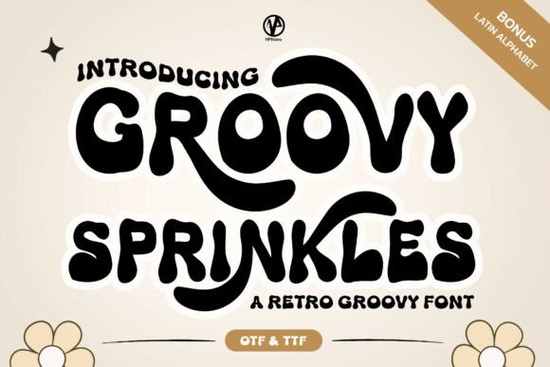
If you are working on a craft project that needs a bit of nostalgia and personality, finding the right typography can make or break the look. Groovy Sprinkles Font was created specifically to add warmth and playful energy to visual designs without feeling dated. It features thick, rounded letters that catch the eye while remaining legible across various sizes. Whether you are creating merchandise for an online store or designing a party invitation, this typeface offers the flexibility needed to stand out in a crowded feed.
Does it fit different creative projects?
This typeface works best for applications where you want a friendly, inviting, or humorous tone. Because of its chunky outlines, it handles scaling well, which is crucial for apparel prints and signage. The smooth curves prevent sharp corners from getting lost when cutting materials like vinyl or cardstock. Designers often turn to this asset when standard sans-serifs feel too cold or corporate for the brand message.
Beyond clothing and stickers, consider using it for social media banners. The high contrast between the stroke weight and the counter spaces ensures readability even on smaller mobile screens. It pairs well with minimalist imagery because the font itself becomes the focal point. You can mix it with simpler text to create hierarchy without cluttering the composition.
- Merchandise: Ideal for T-shirt graphics and tote bag prints.
- Branding: Great for boutique logos or coffee shop menus.
- Events: Perfect for wedding favors or birthday party decorations.
What happens if you need something slightly different?
Is it good for machine cutting?
One common concern among crafters involves how the letterforms interact with physical materials. Because the strokes are solid and connected, this font cuts cleanly on most vinyl plotters and laser engravers. There are no tiny, fragile serifs that tend to tear away from the backing paper. This durability makes it a safe choice for durable goods intended for daily use, such as water bottles or laptop decals.
Pro Tip: Always test your size before running a bulk order. A font that looks great on a screen might lose definition when scaled down under two inches.